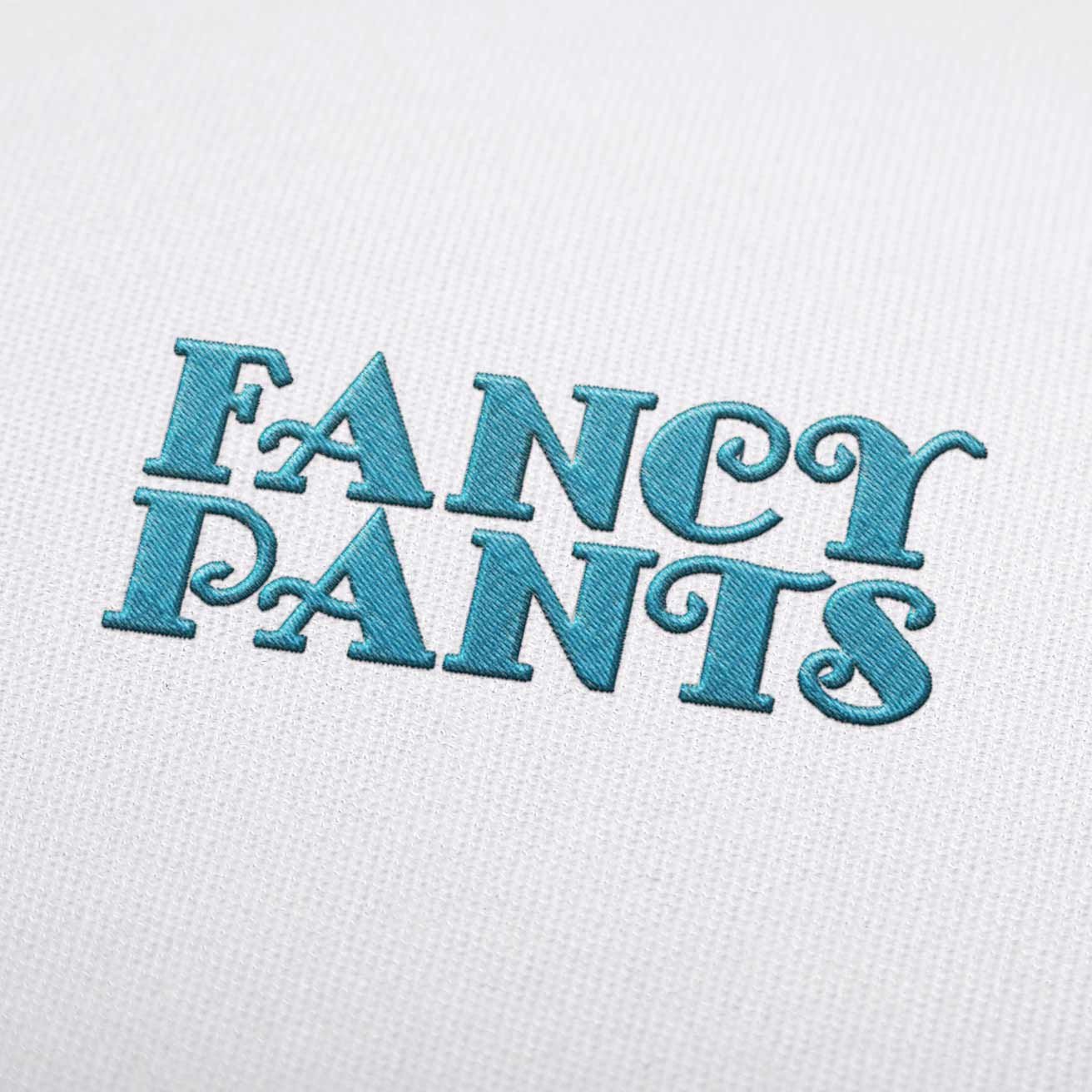
Fancy Pants Font Embroidery Design
Fancy Pants Font Embroidery Design: a full alphabet for names, monograms and short phrases. The letters are built to join without the finishing stitches overlapping.